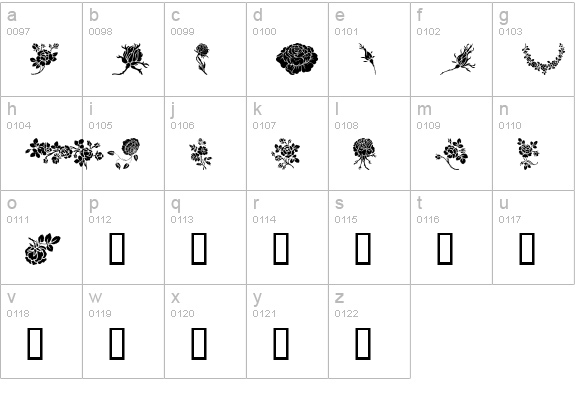
Rosegarden Font Details
The Rosegarden font is a delicate and elegant typeface that exudes a sense of timeless beauty. Its intricate floral-inspired design adds a touch of sophistication to any project, making it perfect for invitations, branding, and more. This stunning font is not only visually captivating but also versatile, offering a range of stylistic options to suit different design needs. Best of all, the Rosegarden font is completely free to download at FontsMarket.com. This means you can access its beauty and charm without any cost, making it a valuable addition to your font collection. Whether you're a designer looking to add a touch of romance to your work or someone who simply appreciates the artistry of typography, the Rosegarden font is sure to impress with its beauty and grace. Unlock the potential of your designs with this enchanting font today.